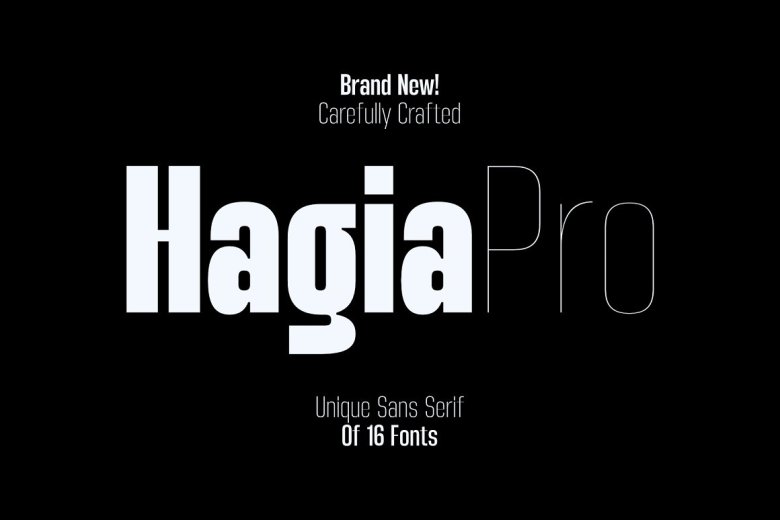
Hagia Pro sans serif font family has its unique italic and lines feel that enables creators to do unique things. It contains several weights that combine for an exciting time to use Hagia Pro.
This sans serif family is very suitable for branding, logo projects, headings, advertising, packaging, web design, prints, among other creative projects.
Hagia Pro Sans Serif Font